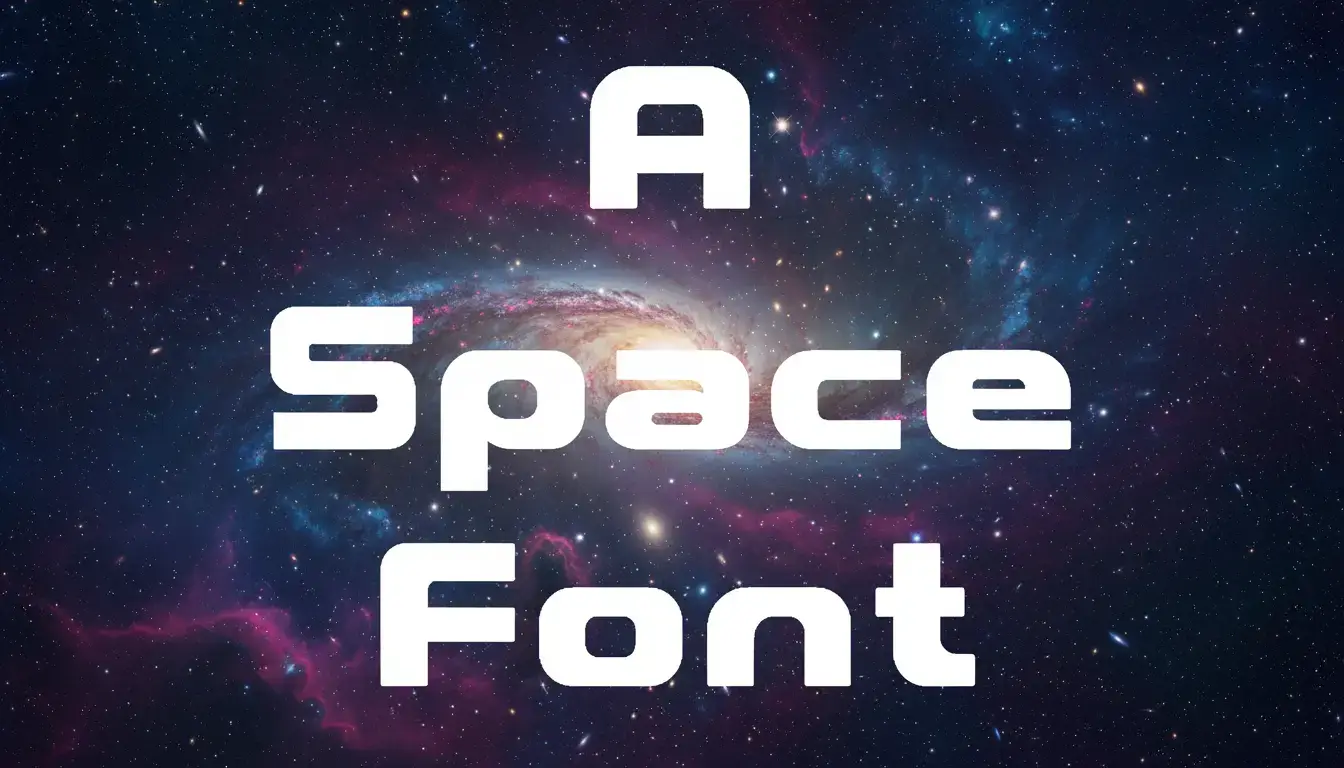
A Space Font
A Space is a sci-fi font created by StudioTypo. Sleek, futuristic shapes make it look like it came from a space movie or a game screen. You get four styles in one free ZIP, and the preview above lets you test each one before you download.
A Space Font Details
What You Can Type With A Space
A Space covers the full alphabet in upper and lowercase, plus all ten numbers, so you can set names, dates and prices without switching fonts. Common punctuation such as &, !, ? and @ is included as well. It also has the accented letters you need for Spanish, French, German, Portuguese and Italian.
Where A Space Works Best
Think of A Space for sci-fi movie titles, gaming logos and tech posters. It looks great with glowing effects, neon colors or a dark background. Because the family has more than one style, you can mix them in a single design for headings, subheadings and highlights.
Does A Space support accented letters?
Yes. A Space includes the accented letters needed for Spanish, French, German, Portuguese and Italian, so it works for more than just English.
What fonts pair well with A Space?
A clean geometric sans serif like Exo or Roboto works well for smaller text.